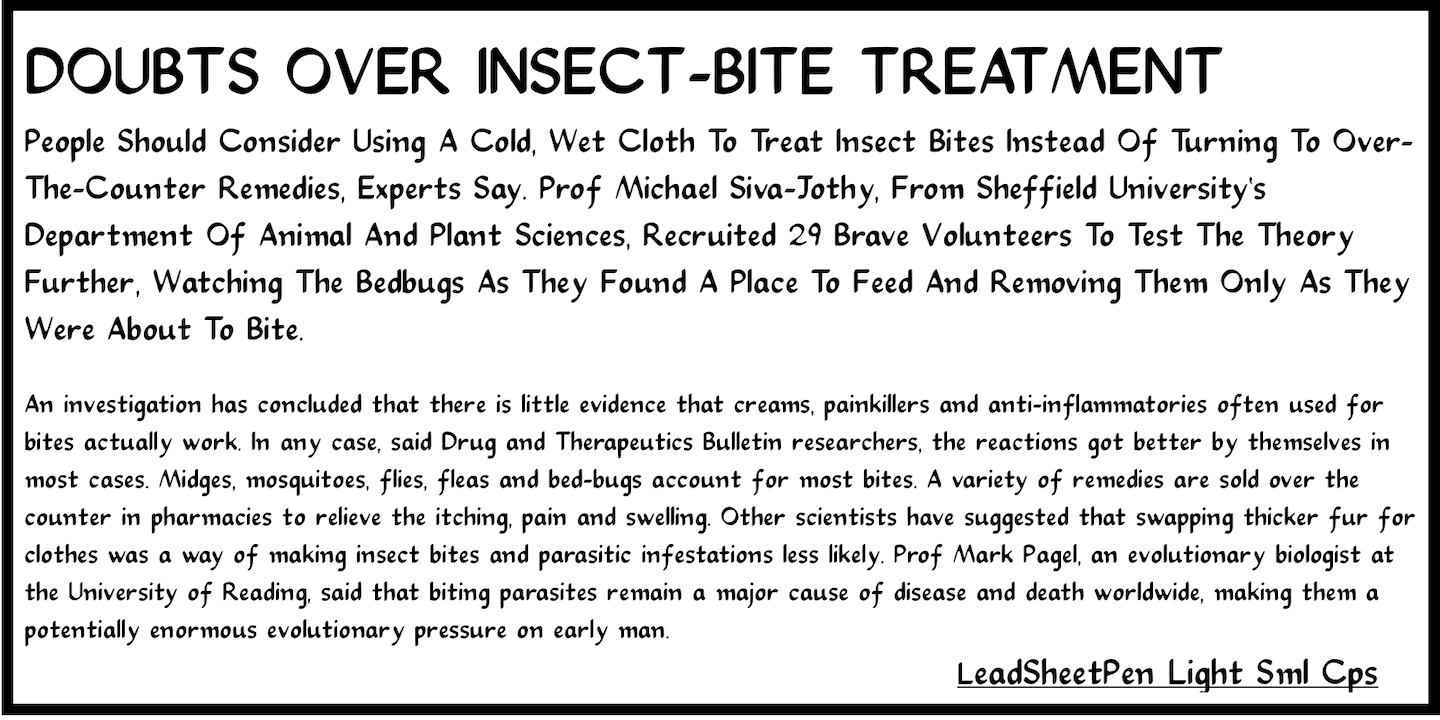
The LeadSheet Pen Font is a wonderfully expressive and authentic typeface, designed to replicate the unique aesthetic of handwritten musical scores and personal notes. Imagine this font being used for personalized song lyrics, adding a genuine, artistic touch to indie band posters, or bringing a spontaneous, creative feel to event invitations. Its fluid strokes and natural irregularities make it an excellent choice for projects that aim to evoke creativity, a handmade quality, or a personal, artistic expression. LeadSheet Pen Font is also perfectly suited for designing unique personal brands, artistic portfolios, and any project where you want to convey a sense of human touch and heartfelt artistry.
What makes LeadSheet Pen Font so exciting is its immediate ability to convey a sense of personal connection and organic creativity. It truly looks like it was penned by hand, giving your designs an authentic, non-digital feel that is both charming and unique. The subtle variations in stroke width and the natural flow of the letters contribute to its genuine appearance, making your text feel more intimate and engaging. This font doesn't just display words; it whispers them with a sense of artistic passion and a personal narrative. Its distinct character ensures your designs will stand out, resonating with an audience that appreciates originality and a human element.
The LeadSheet Pen Font family typically focuses on capturing that singular, authentic handwritten style, so you might primarily find a strong Regular weight that embodies its unique charm. While extensive weight variations might be less common for this type of font, sometimes a slight bolding or a more delicate version could be offered to provide subtle distinctions. The true strength of LeadSheet Pen Font lies in its consistent and believable hand-drawn appearance across all characters, making it highly effective for its intended purpose. For those seeking the unique LeadSheet Pen Font Free Download, its genuine and artistic character opens up a world of creative expression.